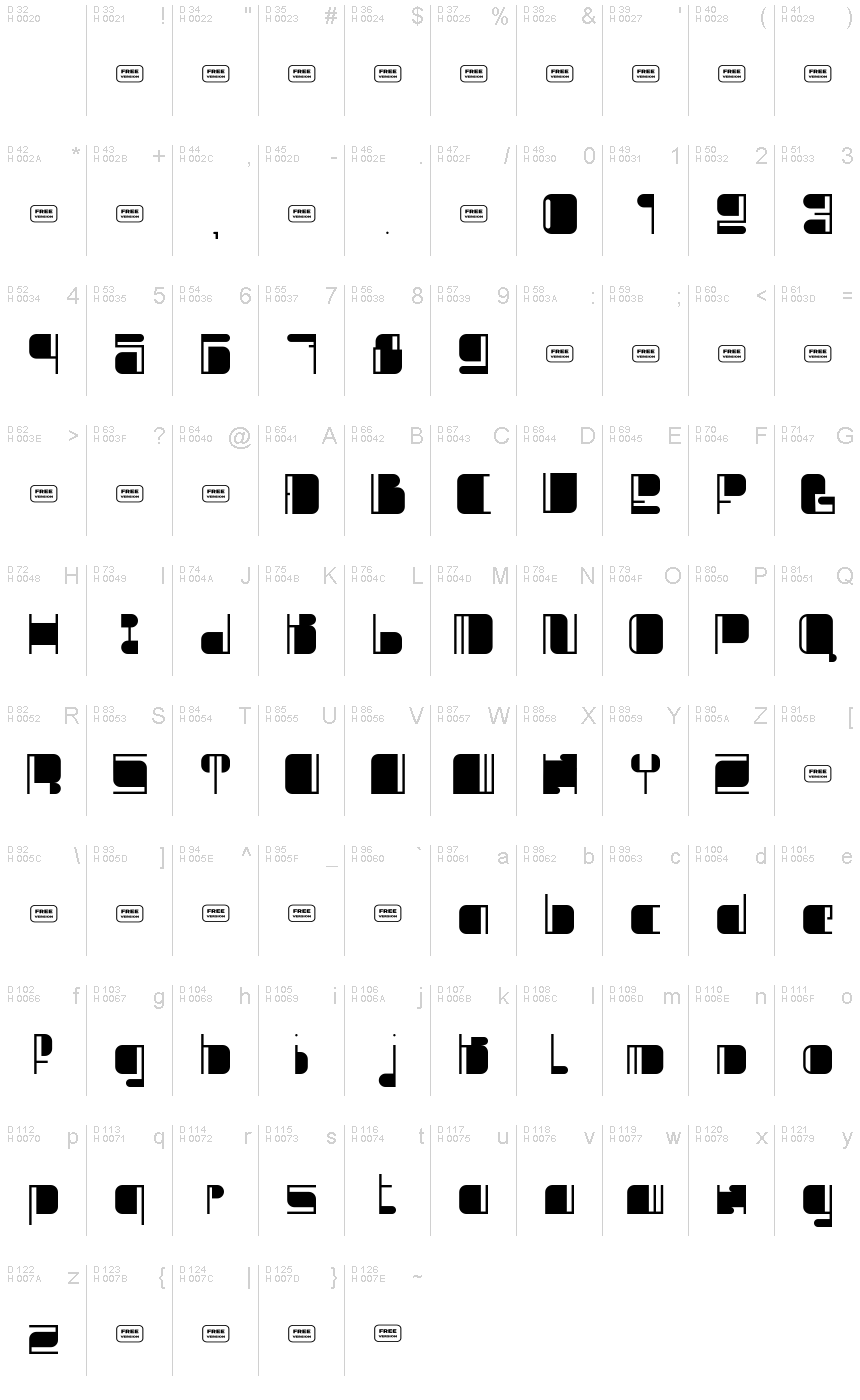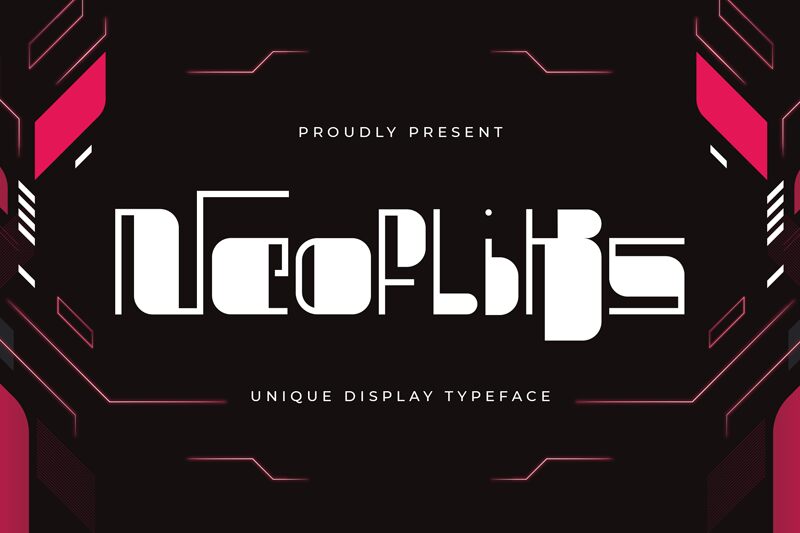
NEOFLIKS Free Trial
Neofliks font is a unique display font designed by Typefactoryco. Its style makes it perfect for use in your design projects, including product packaging, book covers, titles, banners, business cards, and more.
Due to its groovy expanded style and highly visible design, Neofliks is ideally suited for branding projects. Classic enough to be suitable for logos and headlines as well as posters or social media images.
Neoflix is a unique display font, characterized by its distinctive style that enhances various design projects.
It is perfect for applications such as product packaging, book covers, titles, banners, business cards, and more.
Due to its groovy expanded style and highly visible design, Neofliks is ideally suited for branding projects. Classic enough to be suitable for logos and headlines as well as posters or social media images.
Neoflix is a unique display font, characterized by its distinctive style that enhances various design projects.
It is perfect for applications such as product packaging, book covers, titles, banners, business cards, and more.